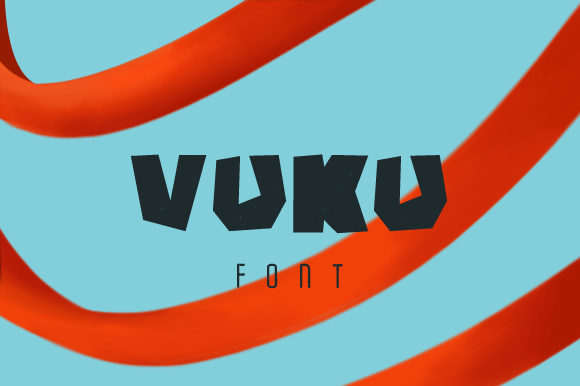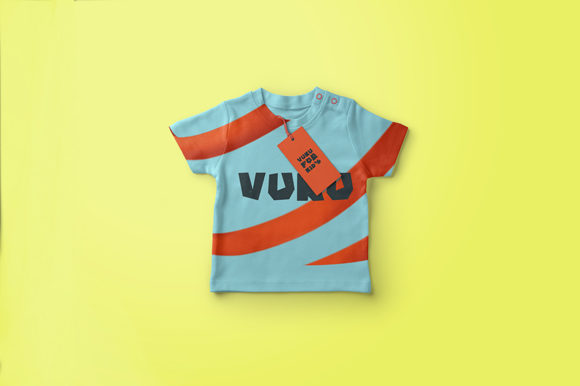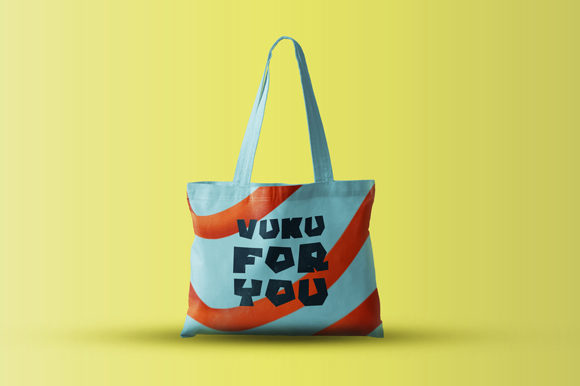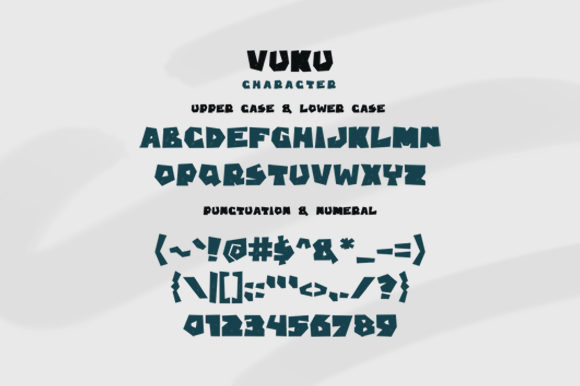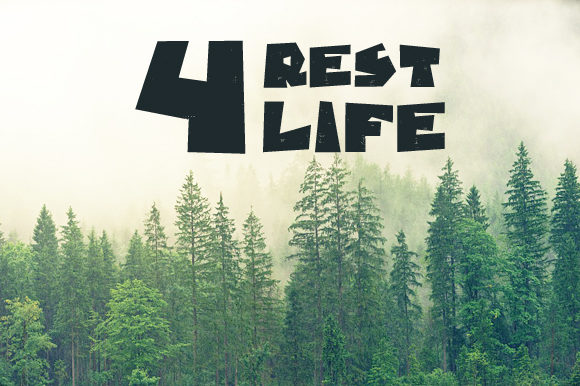
Vuku Font
About Vuku Font
Vuku is a chunky, bold and edgy sans serif font with a contemporary vibe. Its sharp edges give it a playful and almost cartoonish appearance, which makes this a must-have typeface!